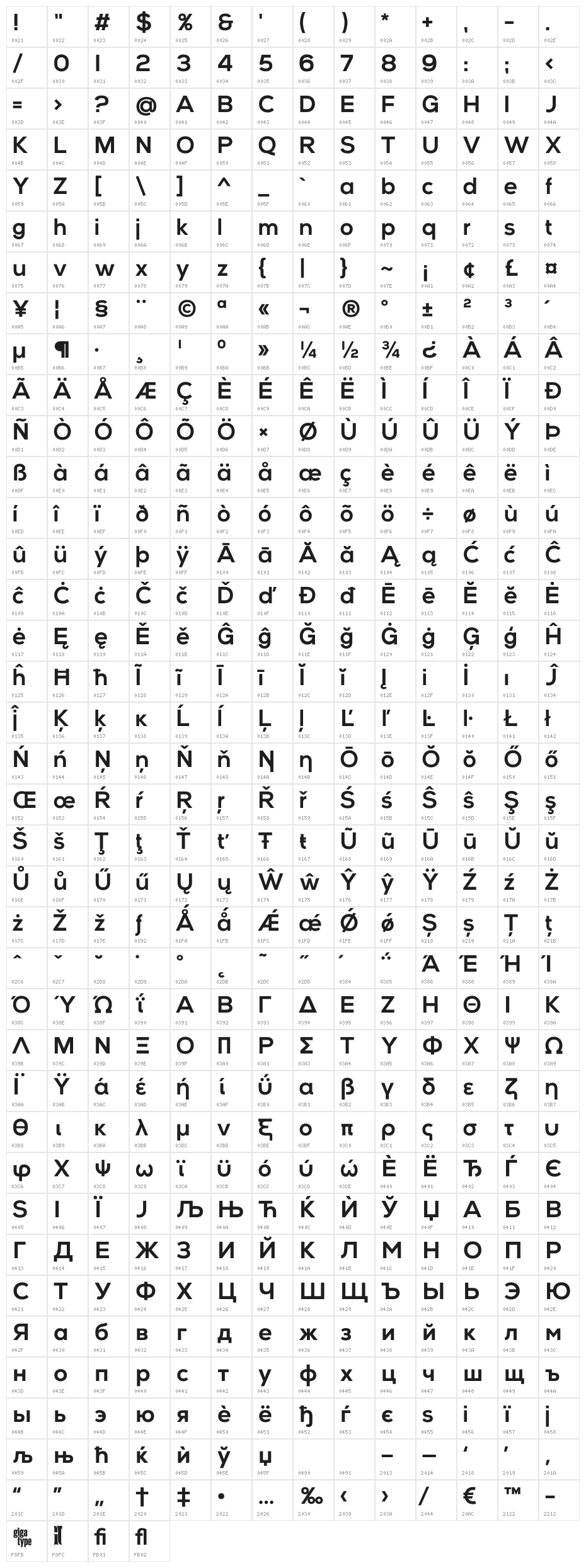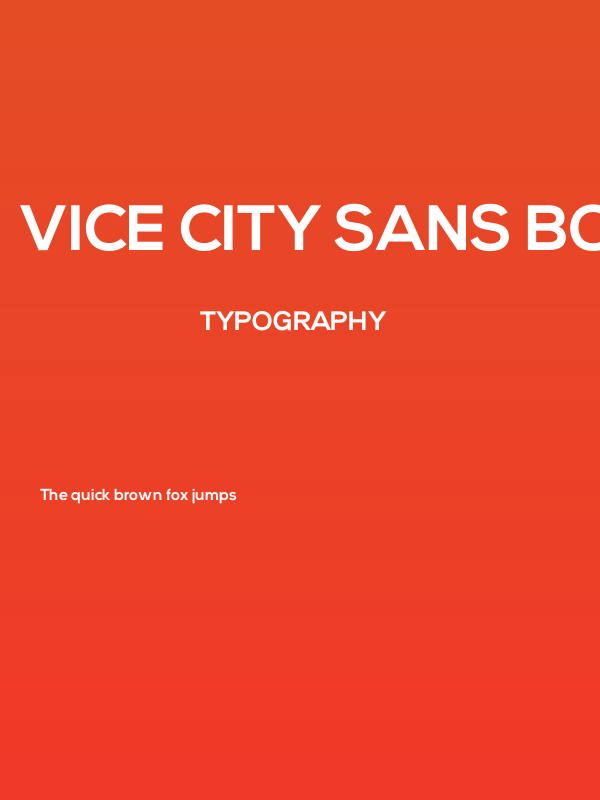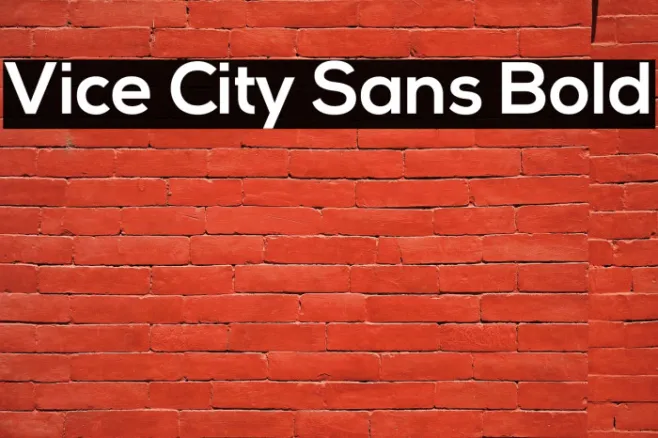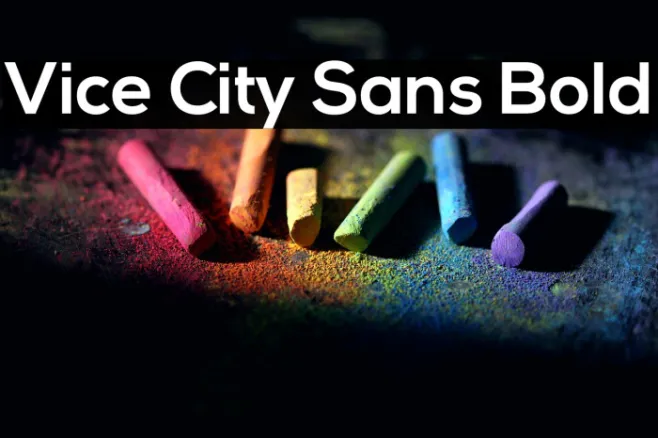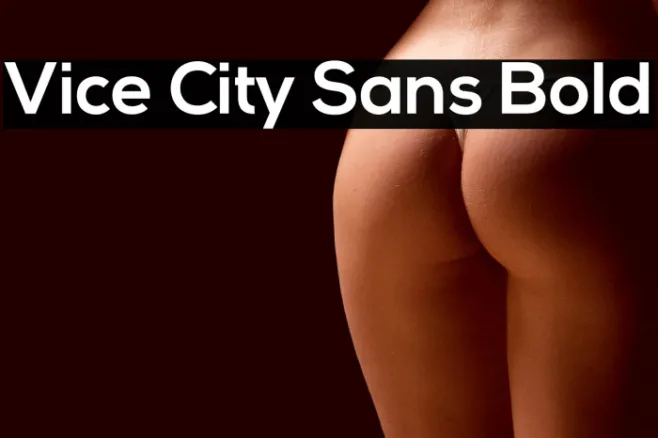
Vice City Sans Bold Font
Vice City Sans Bold Description
A bold, modern sans-serif font with clean lines and a straightforward appearance, suitable for various digital and print applications.
| Use Case | Headlines, Logos, Branding |
| Proposed Projects | Branding, advertising, web design, headlines. |